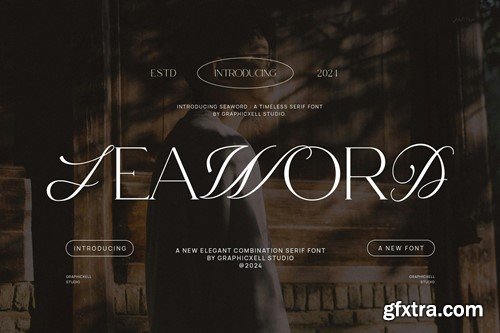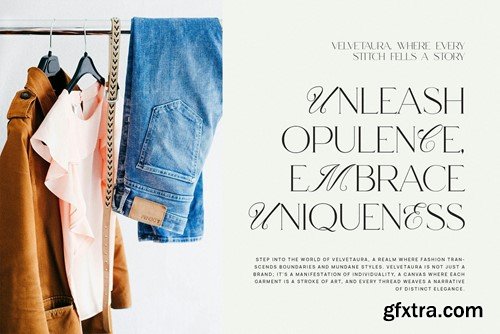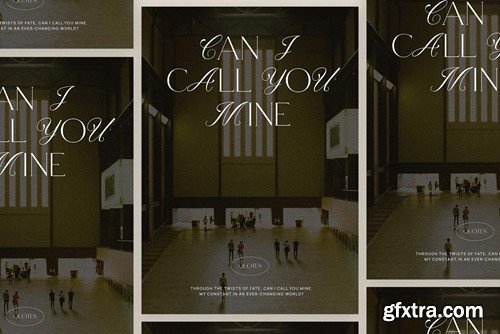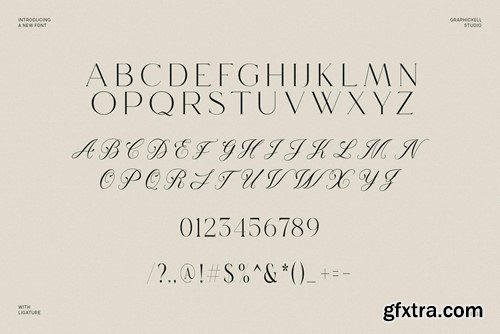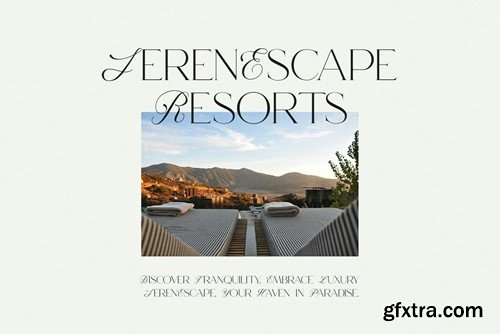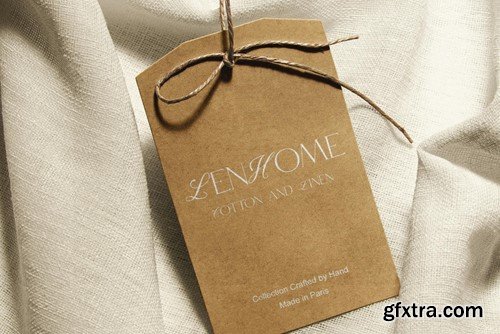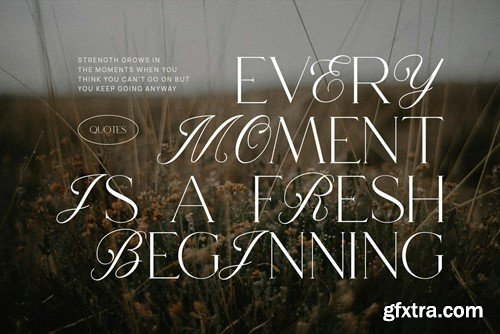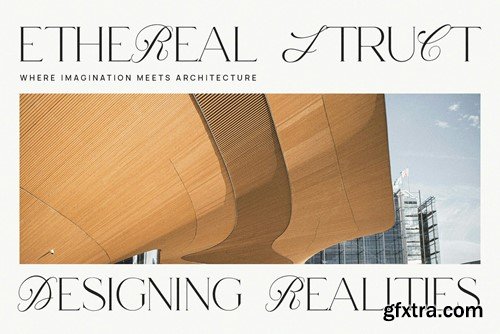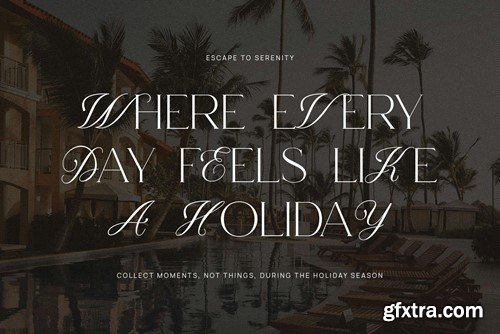
Seaword Calligraphy Serif Font Font Typeface WKQRW7Z
Seaword Calligraphy Serif Font Font Typeface
is a unique and very elegant font for branding and logo designs Elegant serif typeface combined with a classy and modern style. This type of font is very suitable for your various needs such as branding projects, logos, wedding designs, social media posts, advertisements, product packaging, product designs, labels, photography, watermarks, invitations, stationery, and any project, created with high level of readability. you will not be disappointed if you buy this font!!